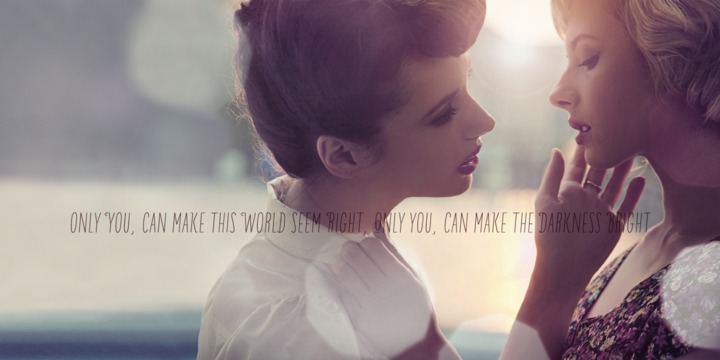
Only You
Only you is a very handmade, romantic font. It was initially introduced to brighten up projects and making them appear more beautiful. The typeface ensures special yet perfect encounter between uppercase letters and lowercase letters. Only You can be referred to as a unicase lettering with 888 glyphs. It has a unique option for all … Read more
Only You
Only You is an amazing handmade romantic font. The typeface was initially introduced to brighten up projects and transforming them into something more beautiful. The typeface is known for its unique quality to stumble upon uppercase letters and lowercase letters impeccably. With 888 glyphs, the incredible typeface has a special alternative for all letters as … Read more